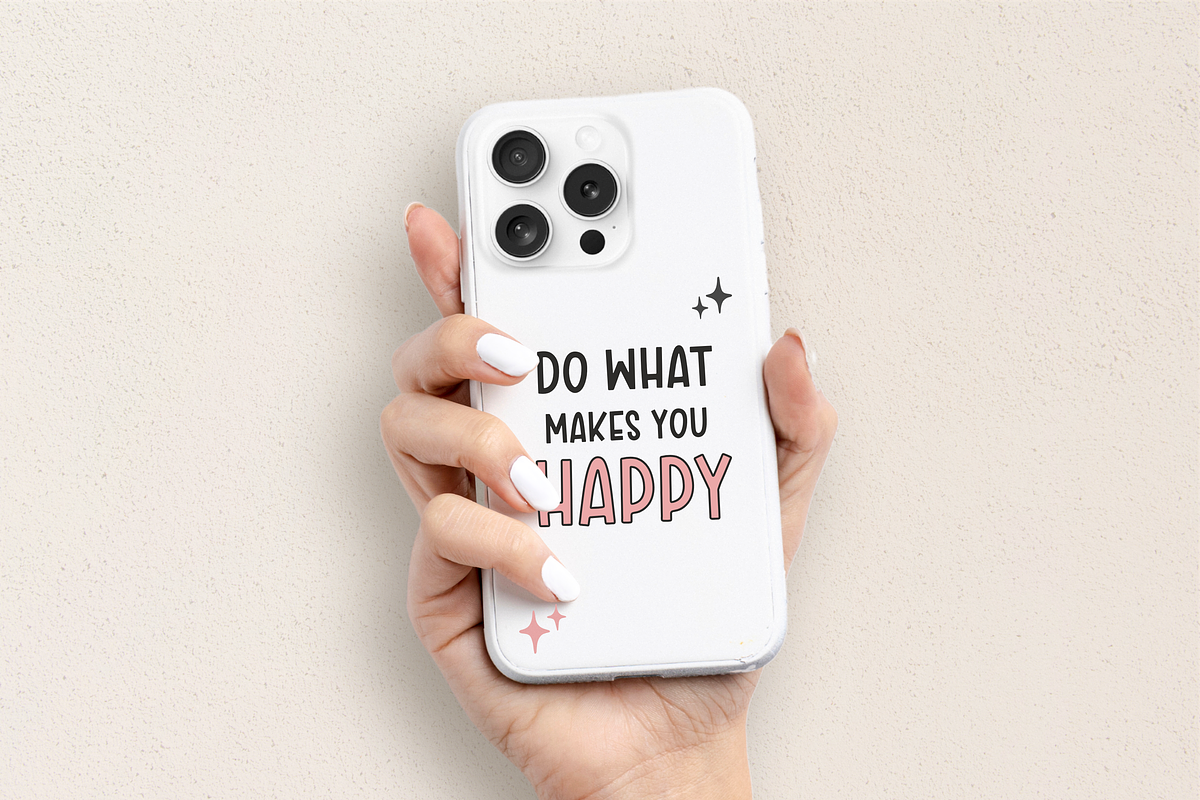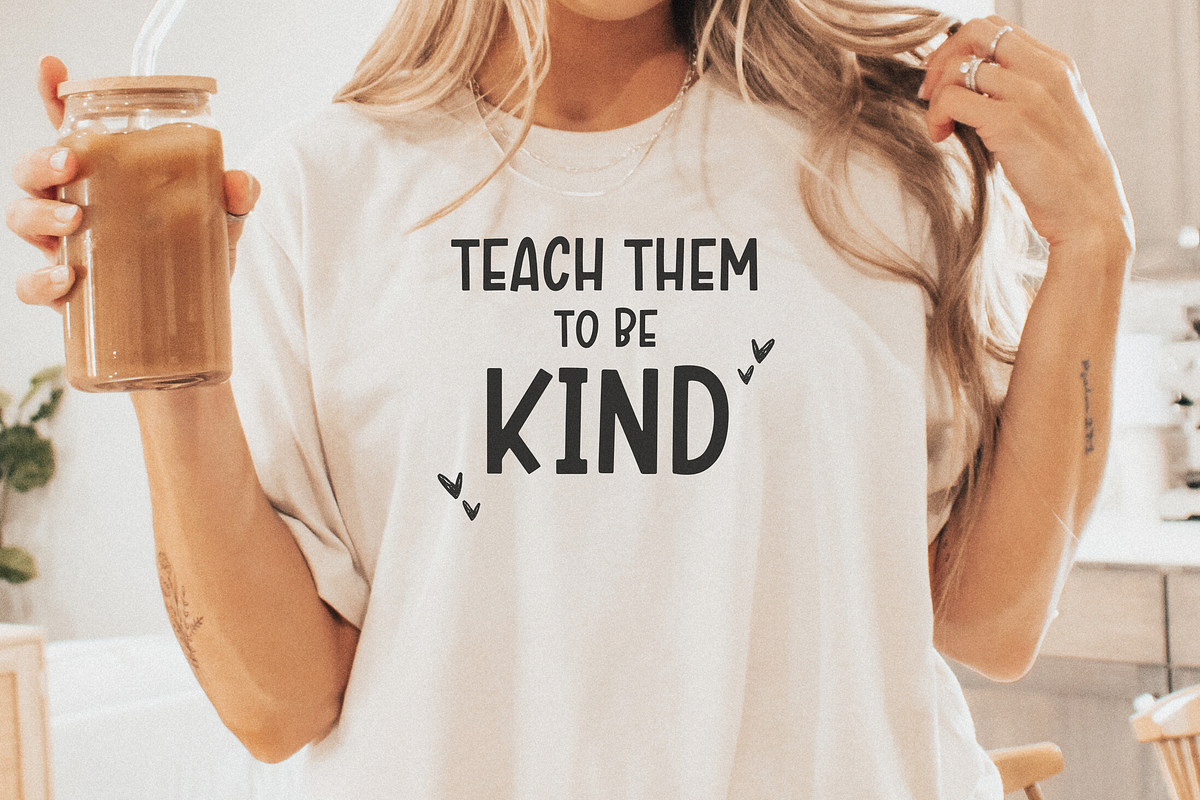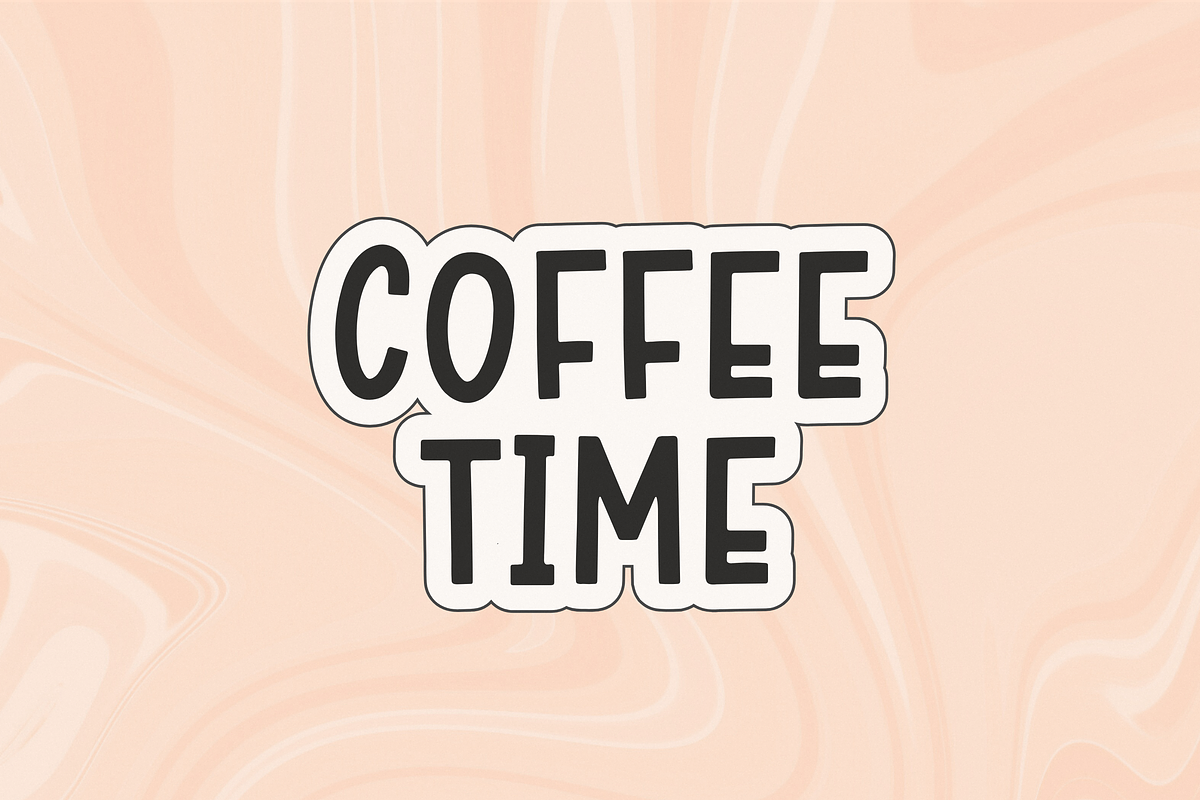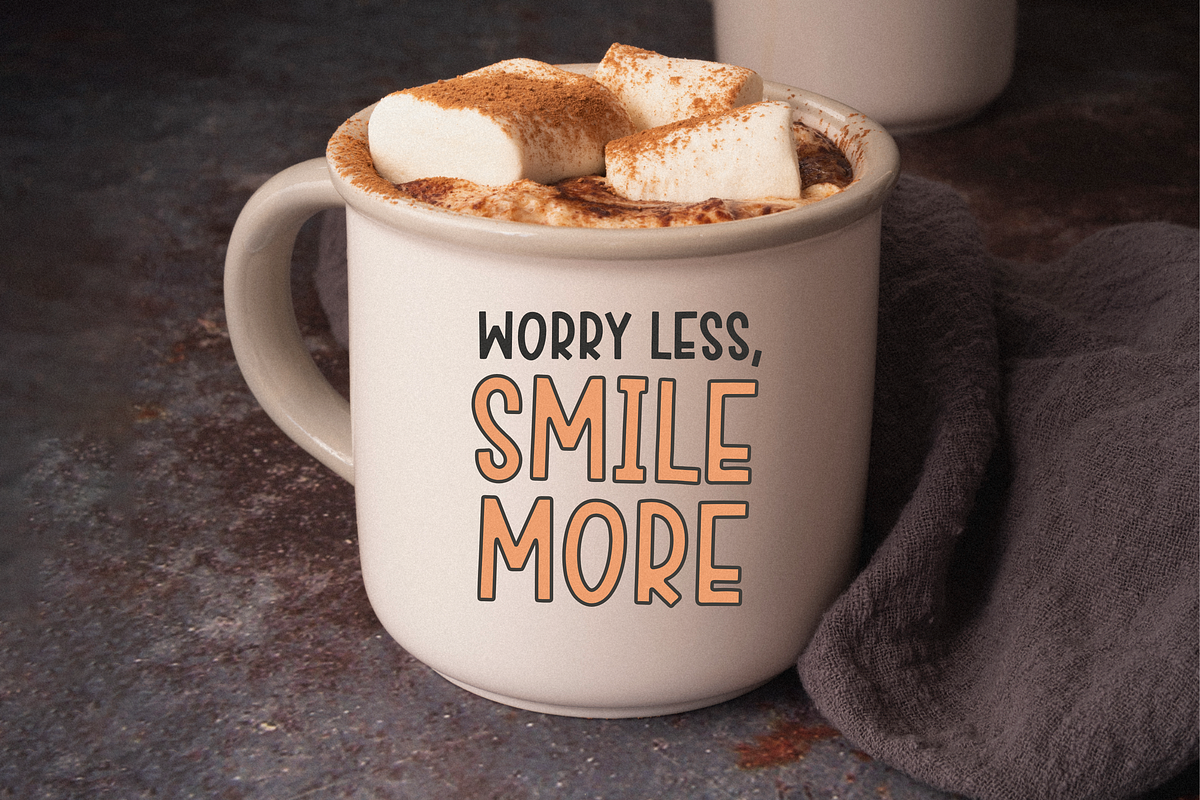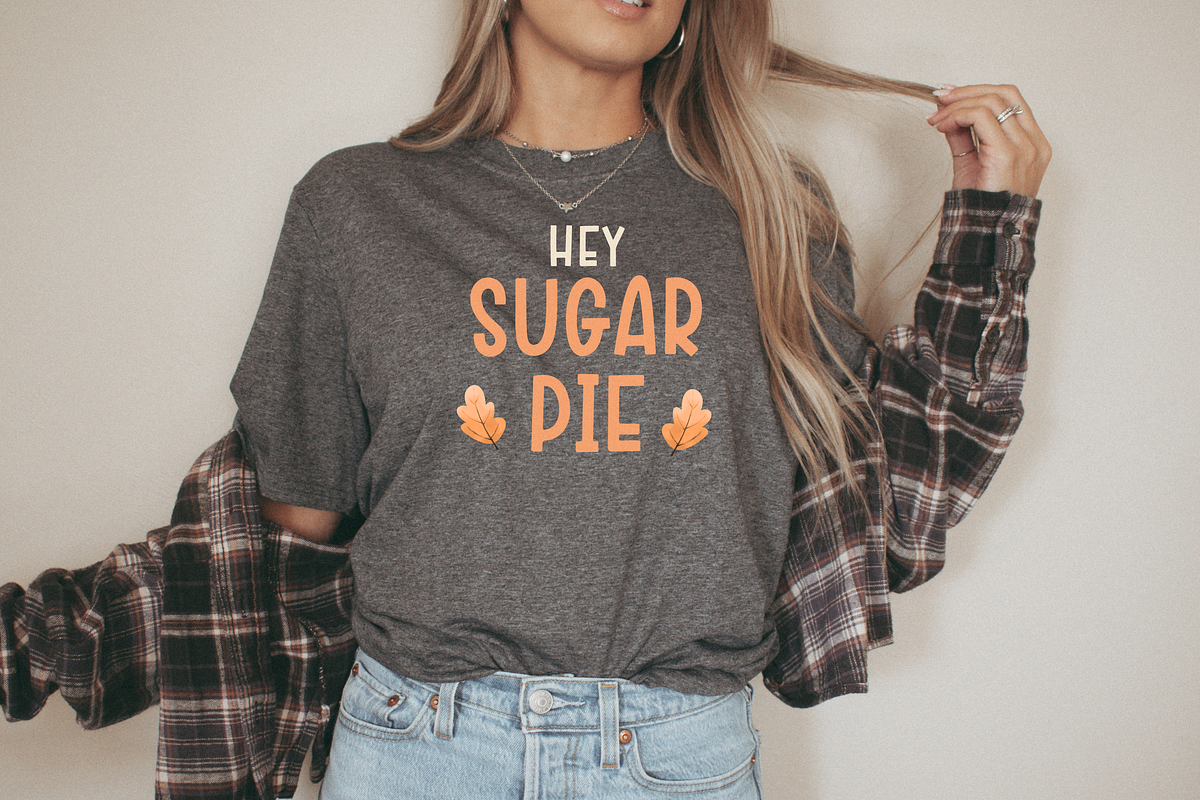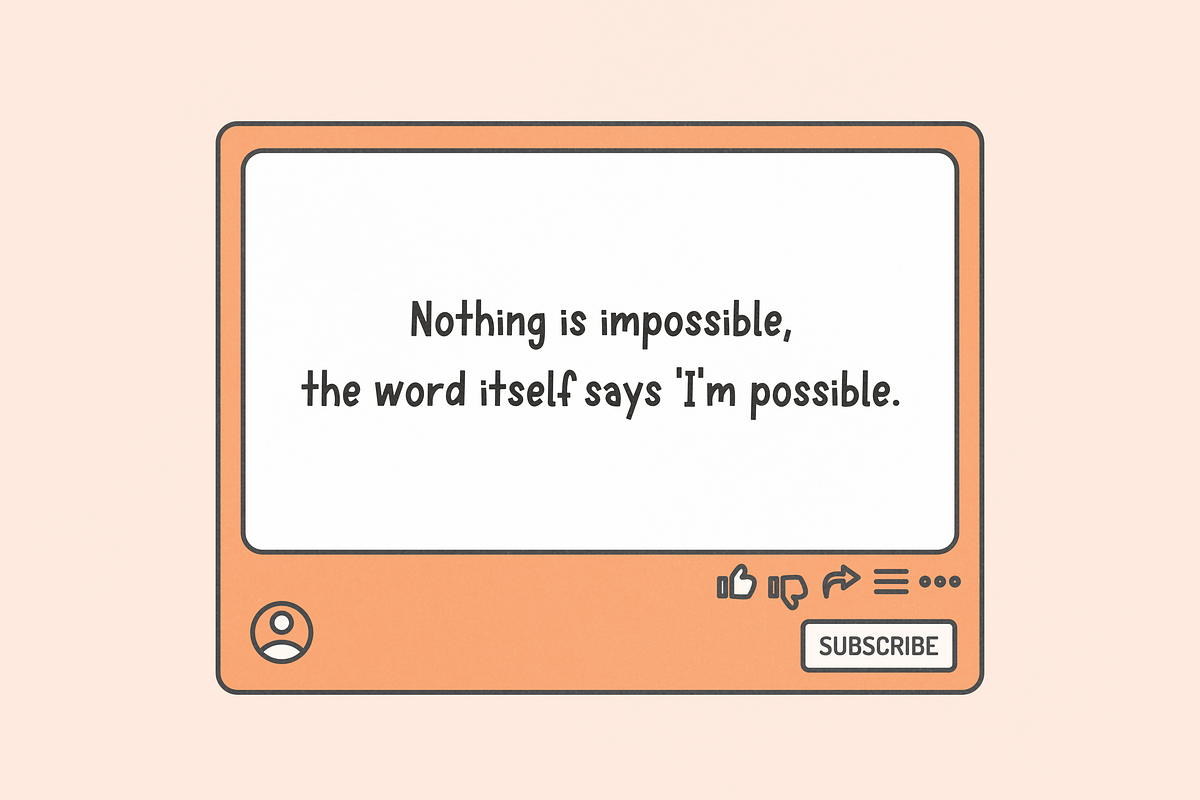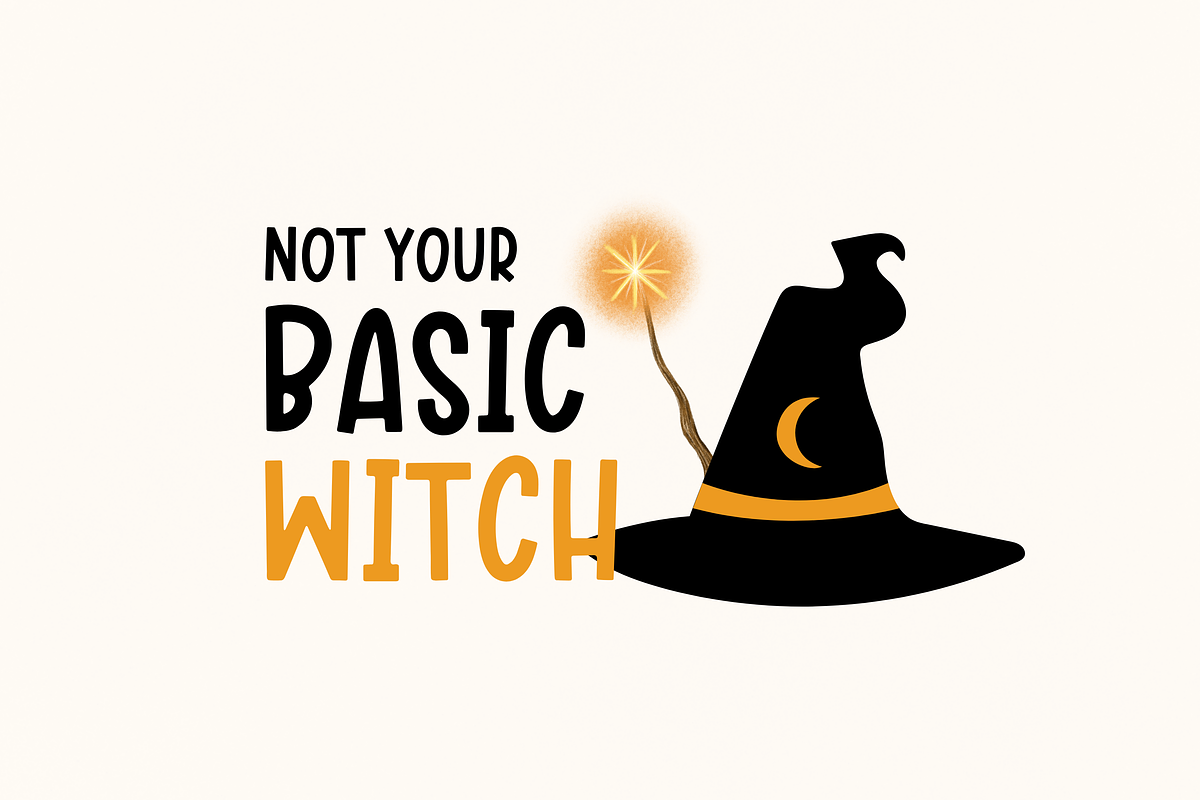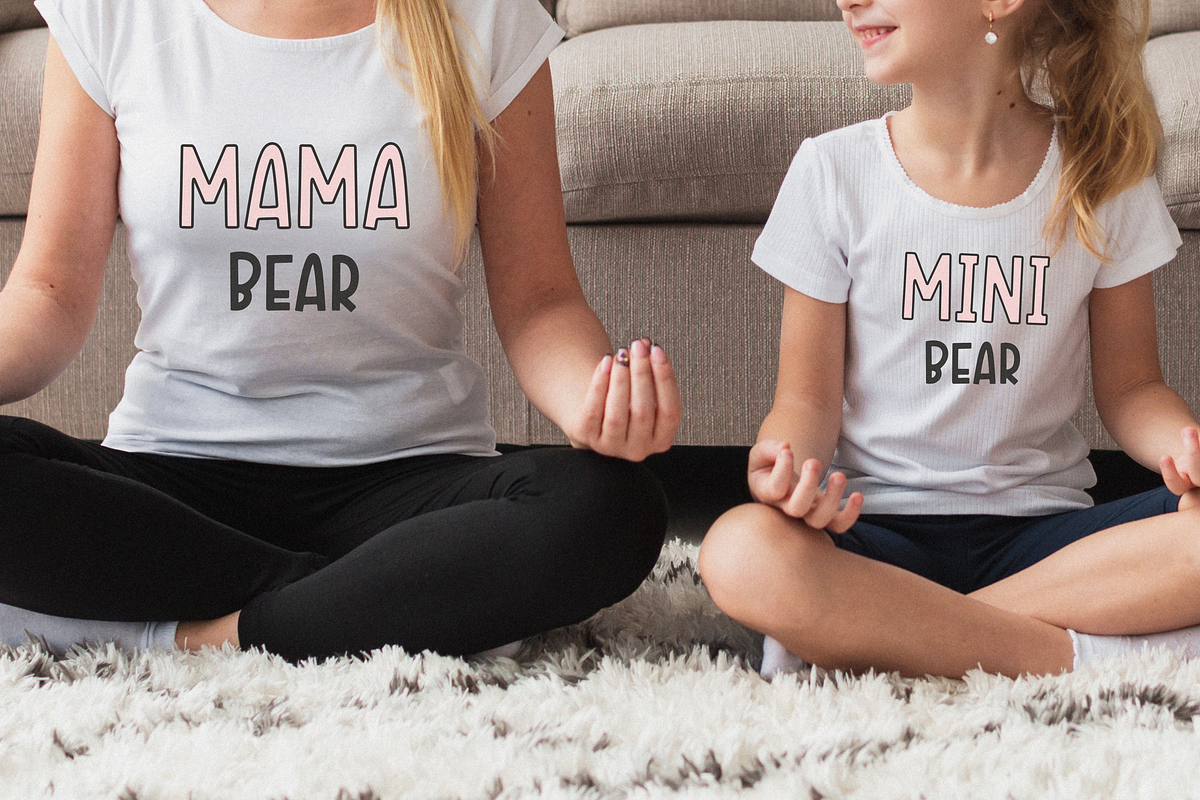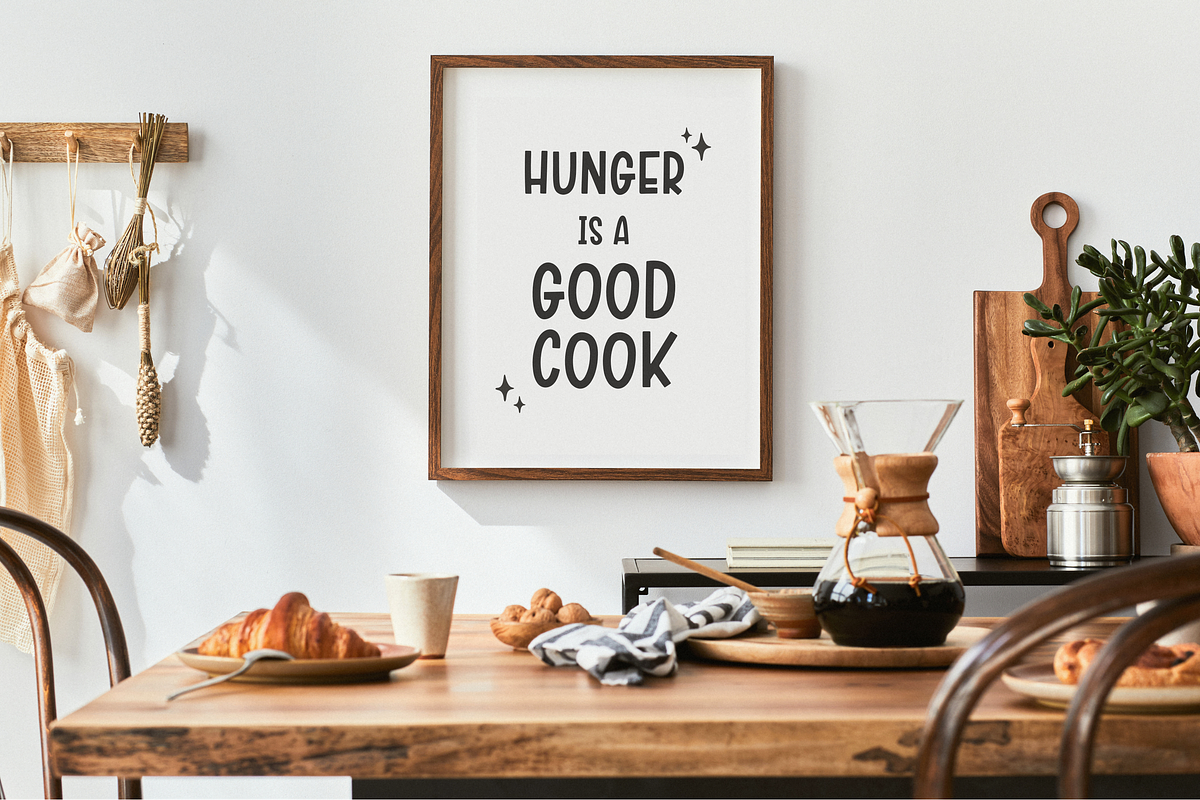
PINK BROOM Font
PINK BROOM FONT A cute & neat handwritten font
✦ PINK BROOM FONT is perfect for: shirts, mugs, logos, wedding invitations, poster, greeting cards, social media, branding, Procreate, digital note taking on digital planner, and more!